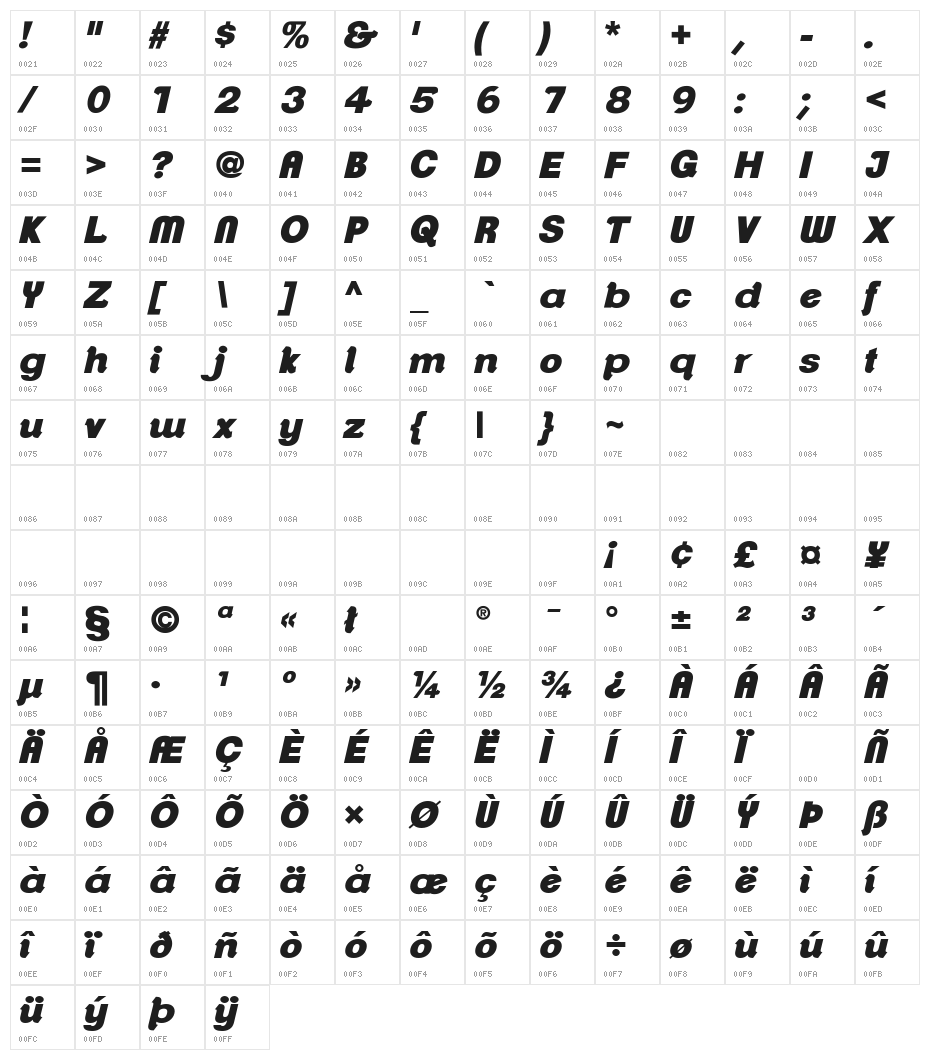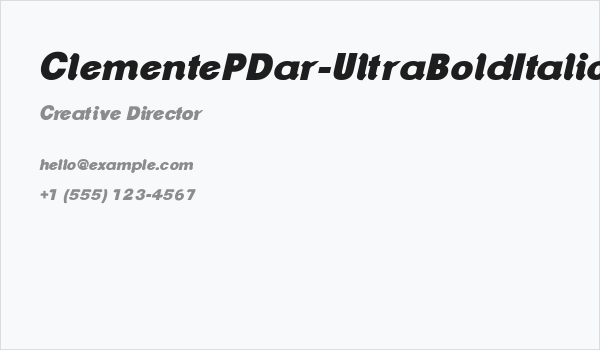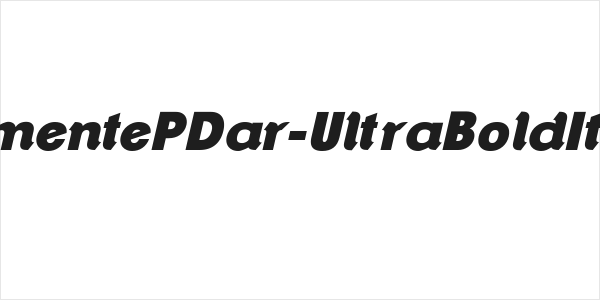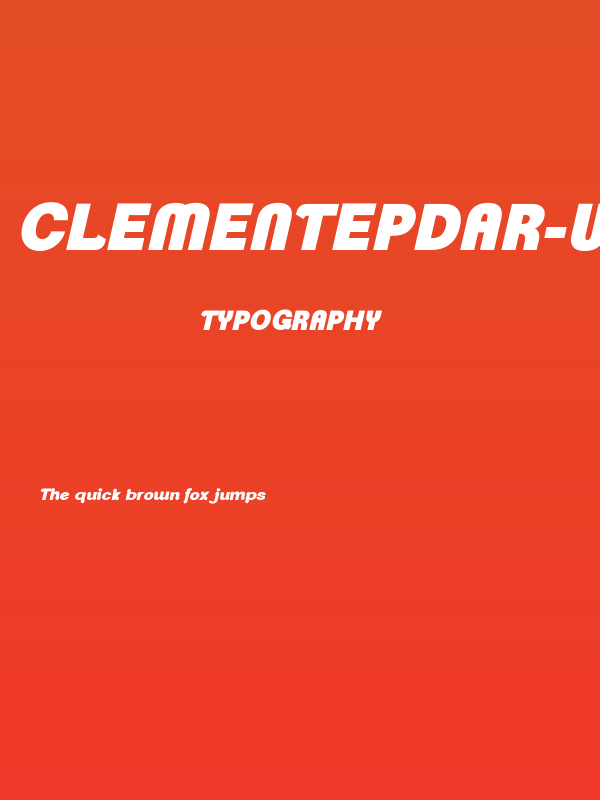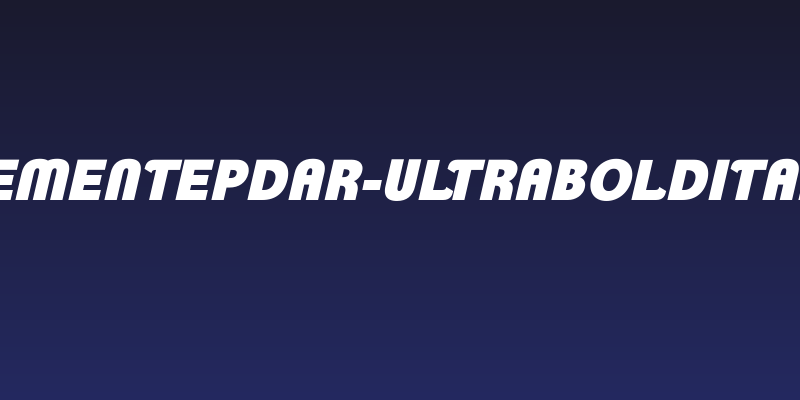
ClementePDar-UltraBoldItalic Font
ClementePDar-UltraBoldItalic Description
This font features a bold and dynamic style with a strong italic slant, giving it a sense of movement and energy. The characters are thick and robust, with rounded edges that soften the overall appearance. The uppercase and lowercase letters maintain a consistent weight, providing a cohesive look across the alphabet. The numerals are equally bold, ensuring readability and impact. Special characters are designed to match the boldness and style of the letters, making them suitable for various uses. The font's ultra-bold weight and italic style make it stand out, ideal for attention-grabbing headlines or logos.
| Proposed Projects | Ideal for branding, advertising, poster design, and any project requiring a bold, eye-catching typeface. |